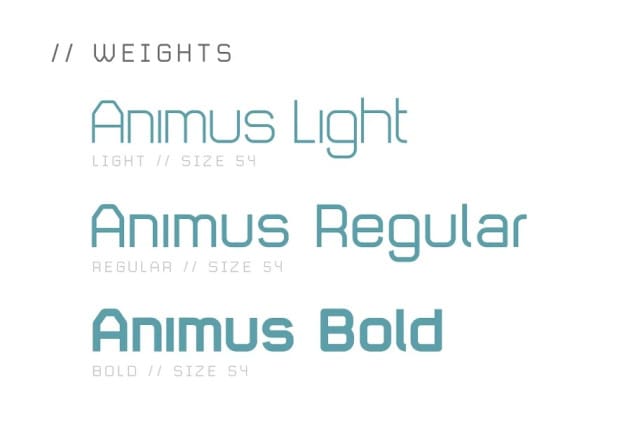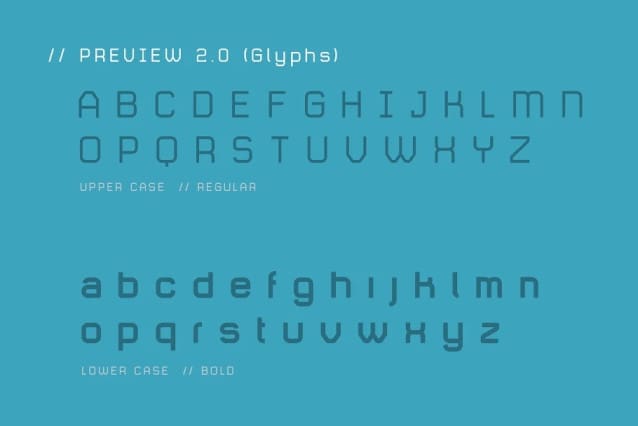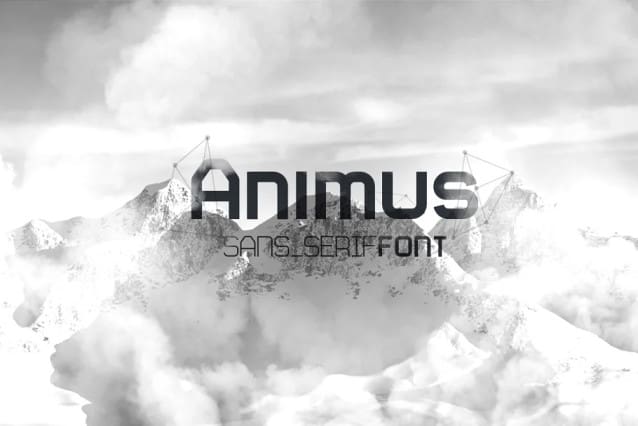
Animus Font
Animus Font is a sleek sans-serif typeface. It can be used as body text or as a display font. With inspiration from technology, geometry and minimalism, Animus is well suited for a variety of design needs.
Animus comes in 3 weights: Light, Regular and Bold. Each weight has A-Z, 0-9, international language support and many supporting glyphs.